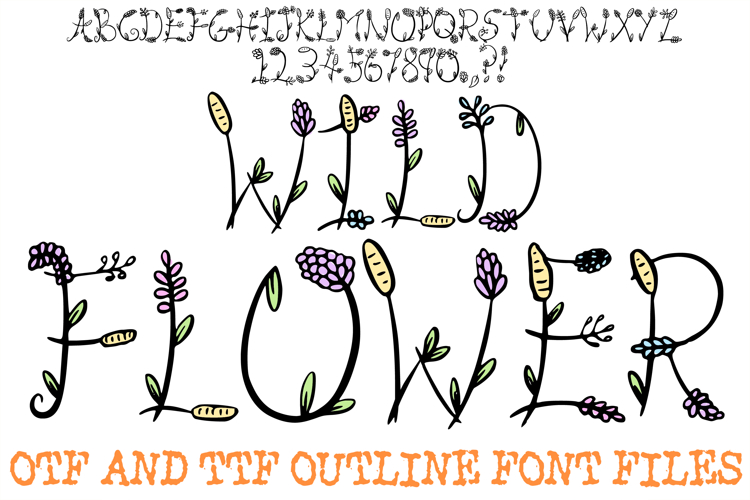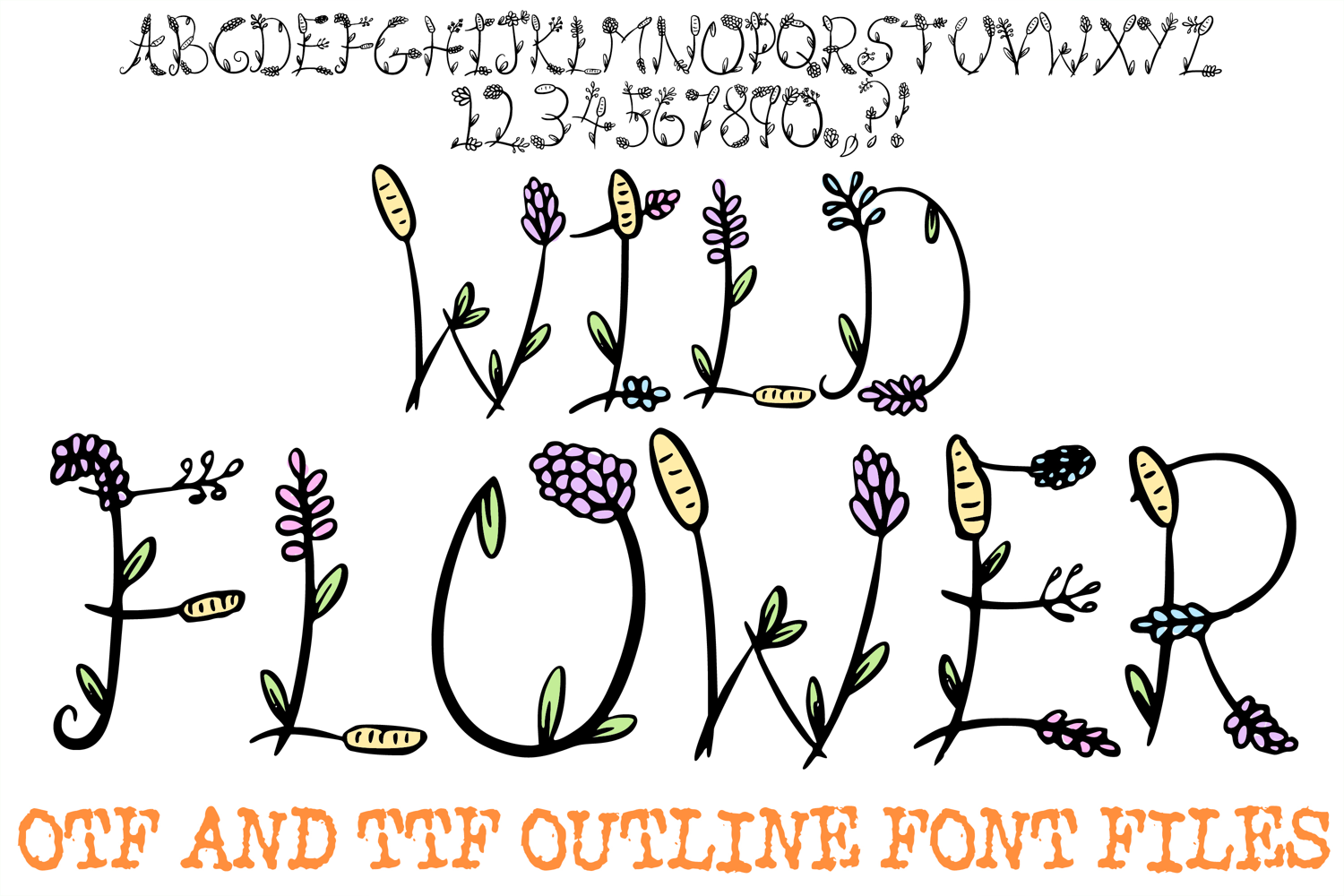
Wildflower Font Floral Flowers Harvest ABC OTF Type
The Wildflower Font is a delicate, nature-inspired display typeface that transforms every letter into a blooming botanical illustration. Each character is intricately woven with hand-drawn floral elements, including soft lavender buds, sprigs of wheat, and dainty leaves. It is an exquisite choice for designers working on spring-themed wedding invitations, cottagecore branding, organic product packaging, and whimsical garden signage.
Crafted with a slender, elegant silhouette and a soft pastel palette, this font captures the essence of a sun-drenched meadow. Whether you are creating custom sublimation prints for harvest-themed apparel or designing a gentle logo for a boutique florist, the high-quality OTF and TTF formats ensure your typography grows beautifully across both digital and physical media.
Why Your Designs Will Stand Out
Botanical Details: Each letter features unique floral accents like lavender and berries, giving your text a custom, hand-illustrated feel.
Whimsical Aesthetic: The thin, flowing lines create a sophisticated yet playful look that is perfect for romantic and natural branding.
Nature Palette: Pre-colored with gentle purples and golden yellows, these characters are ready for immediate use in seasonal designs.